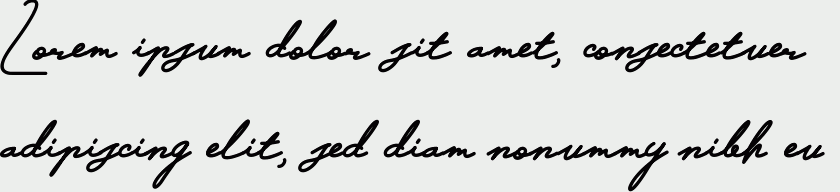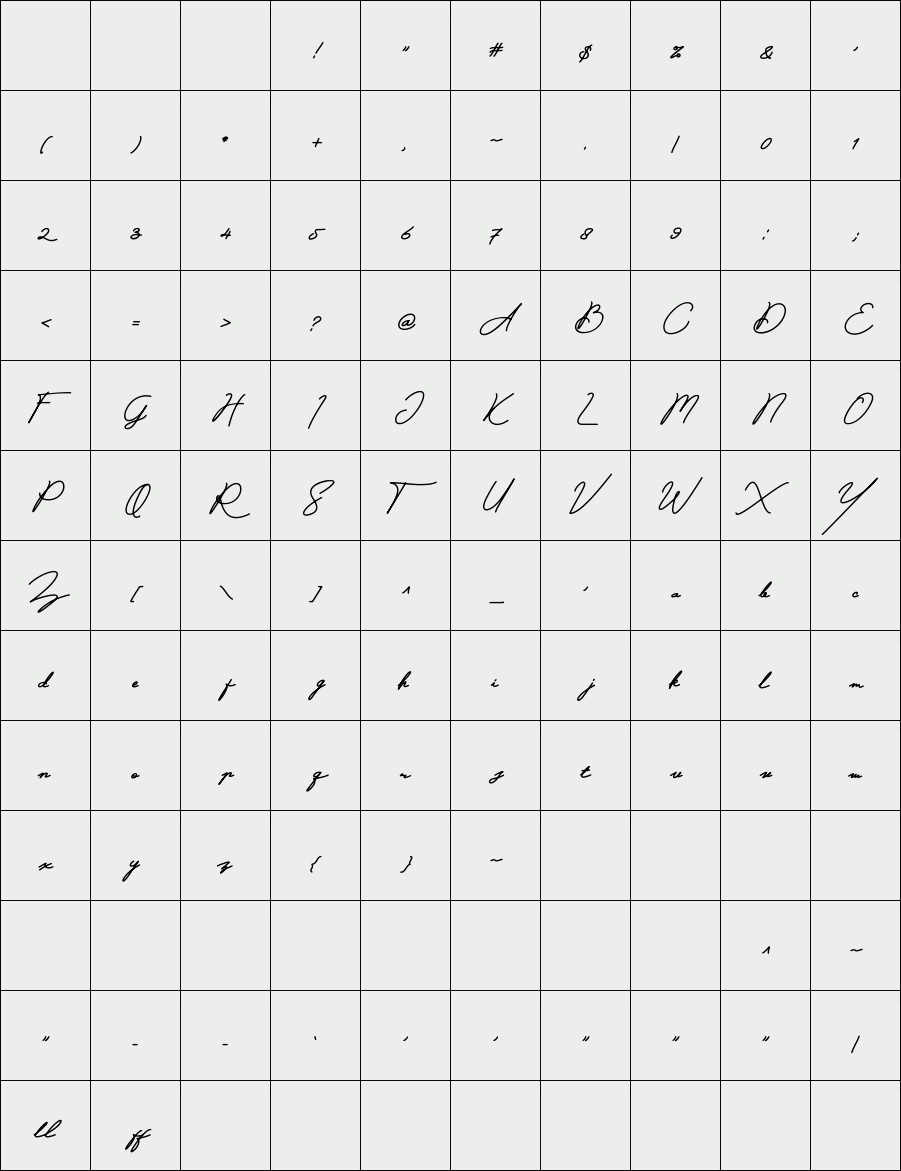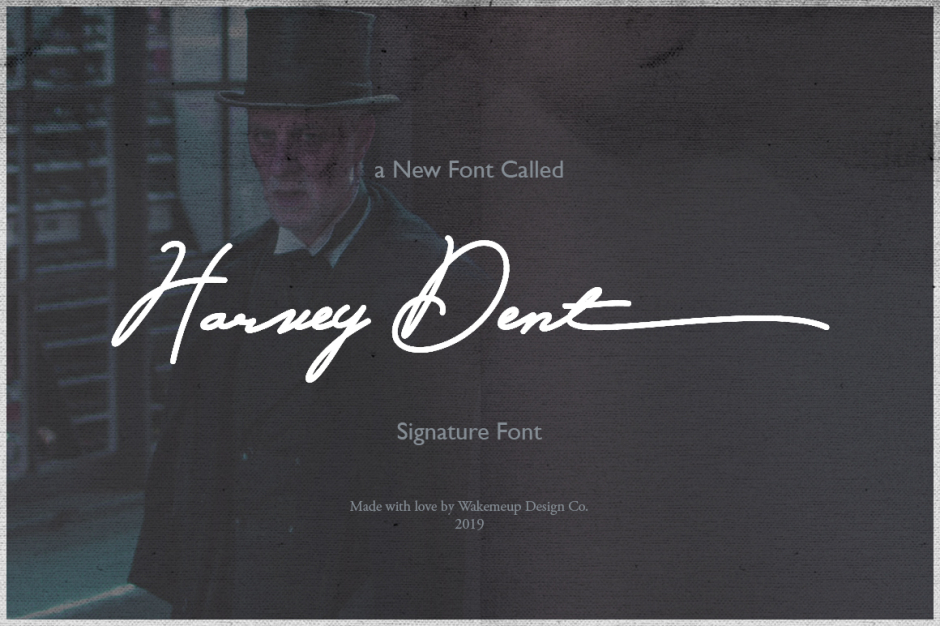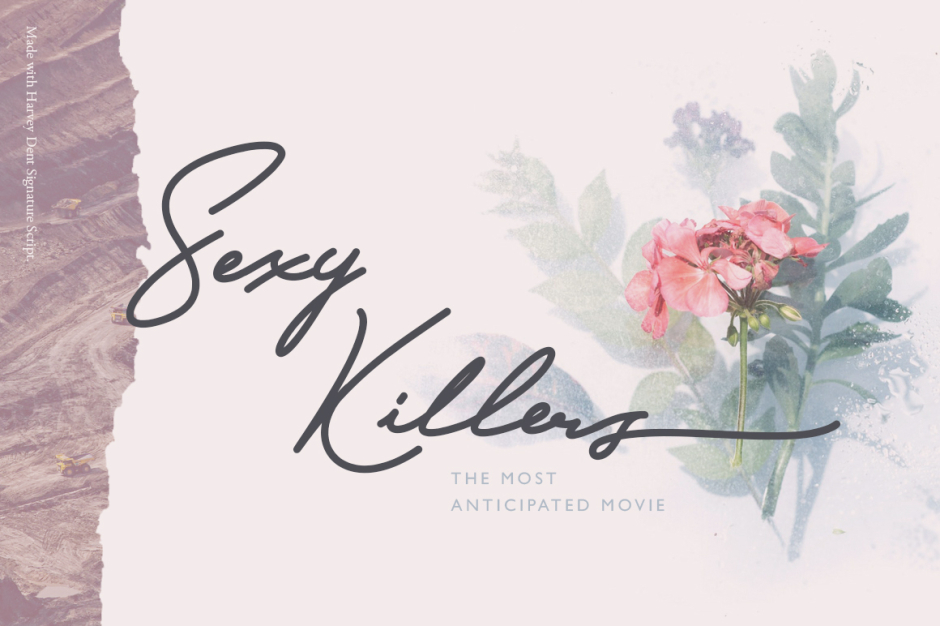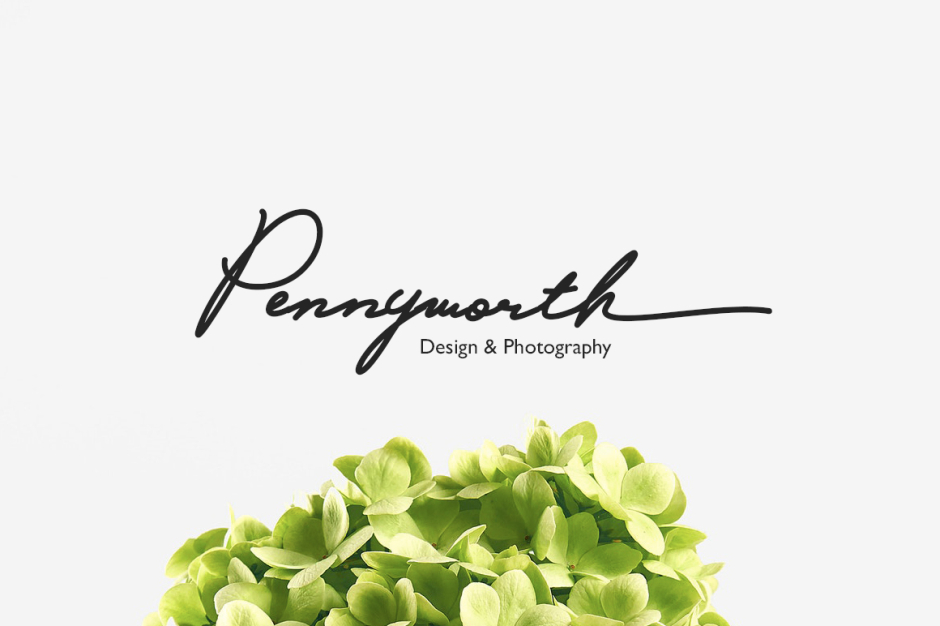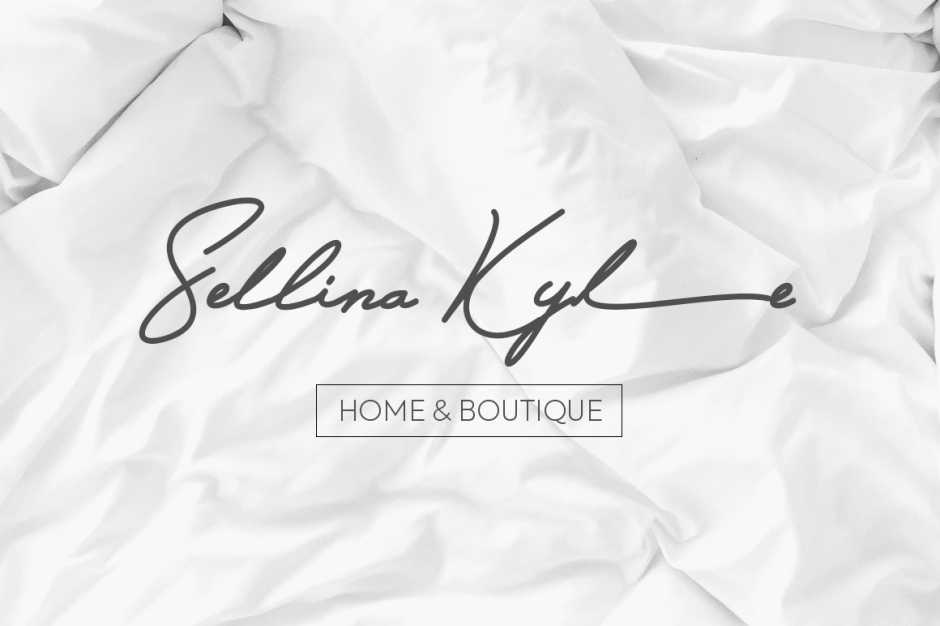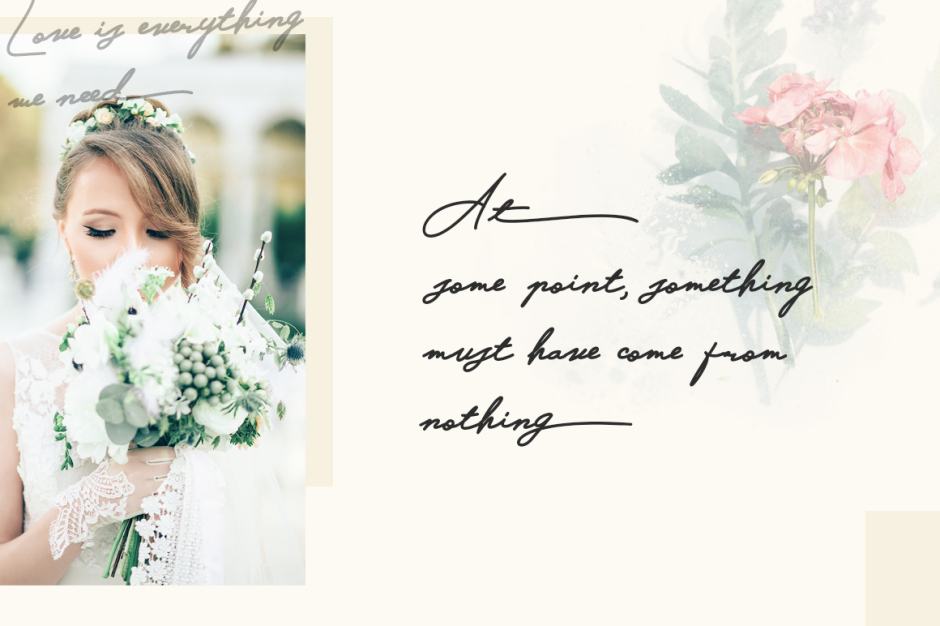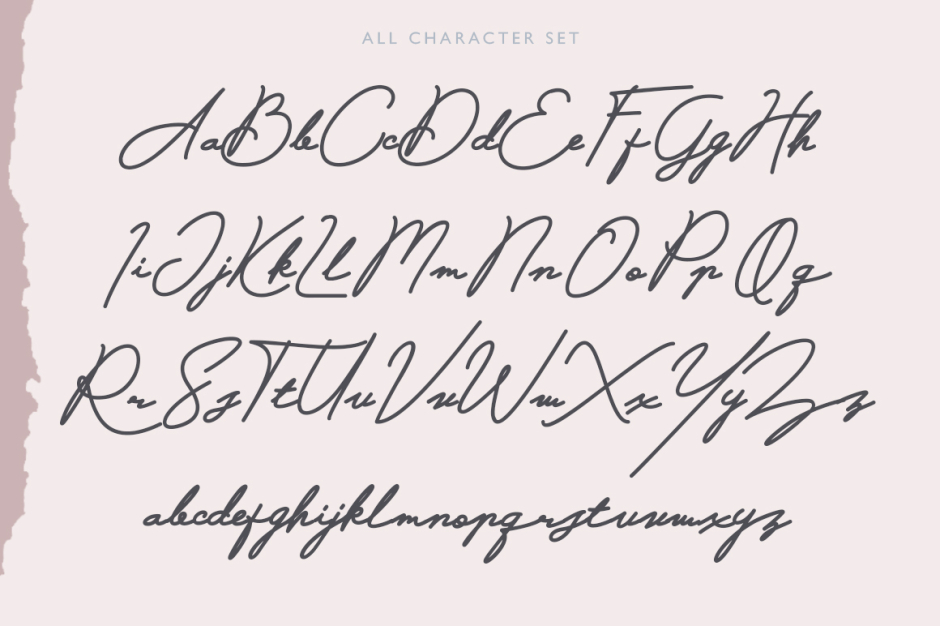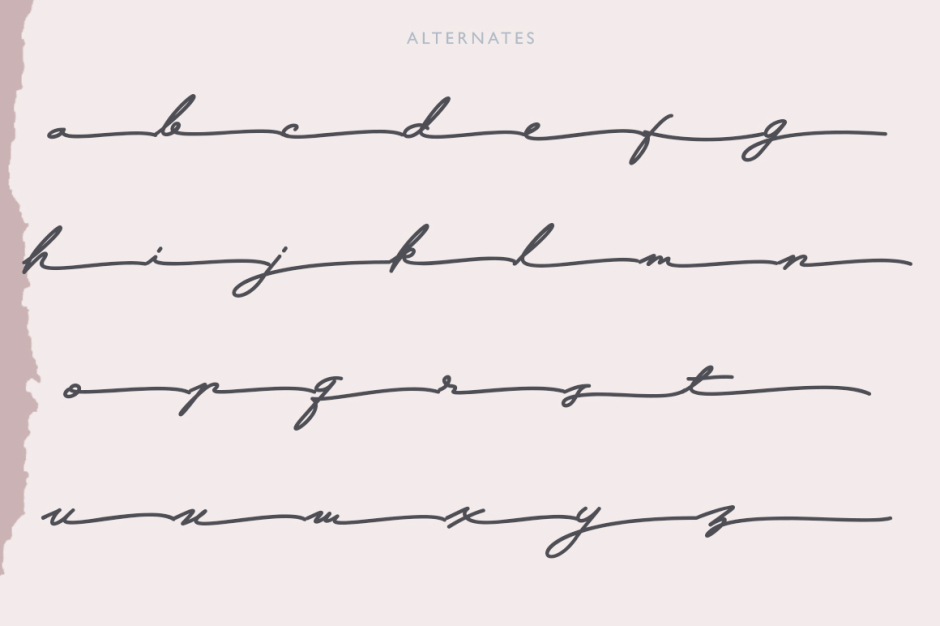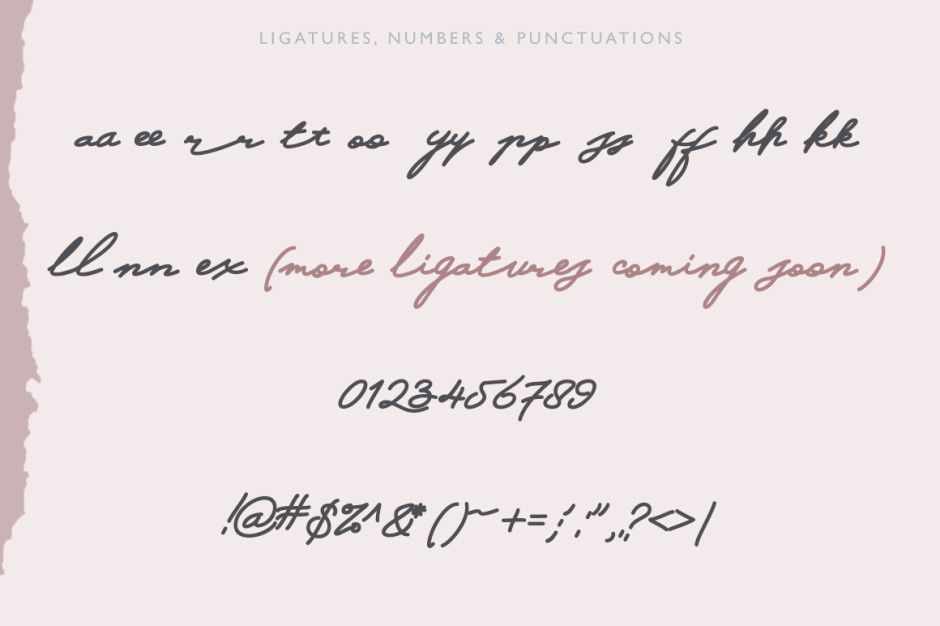
Harvey Dent Signature
Introducing the new signature style font Harvey Dent Signature Script. An elegant script typeface with natural handmade feels. This font is perfect for your logotype, wedding invitations, headlines, or any graphic design related needs. It comes with alternates, ligatures, numeral & punctuations, a lot more ligatures and alternates will added in every updates.